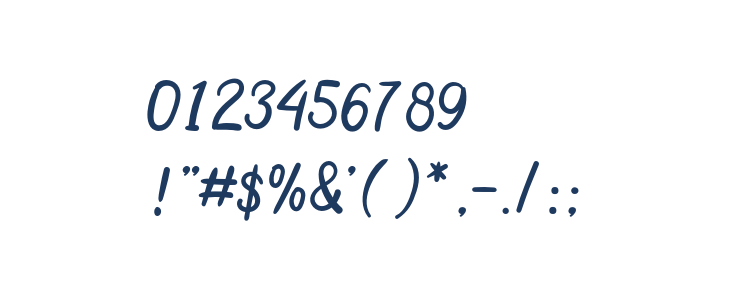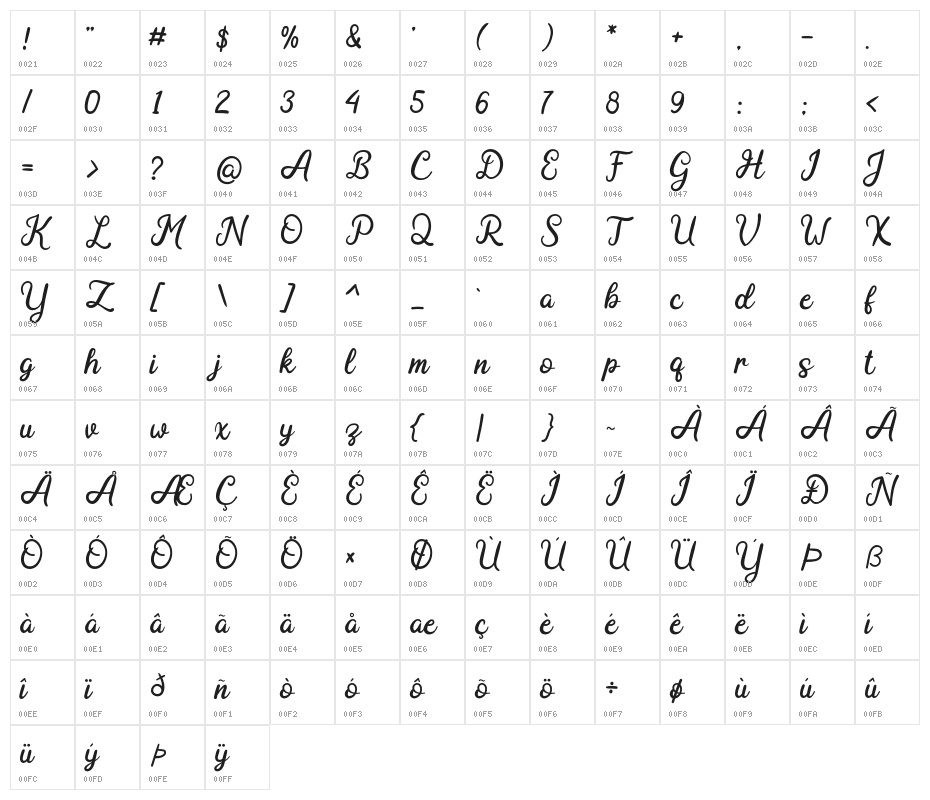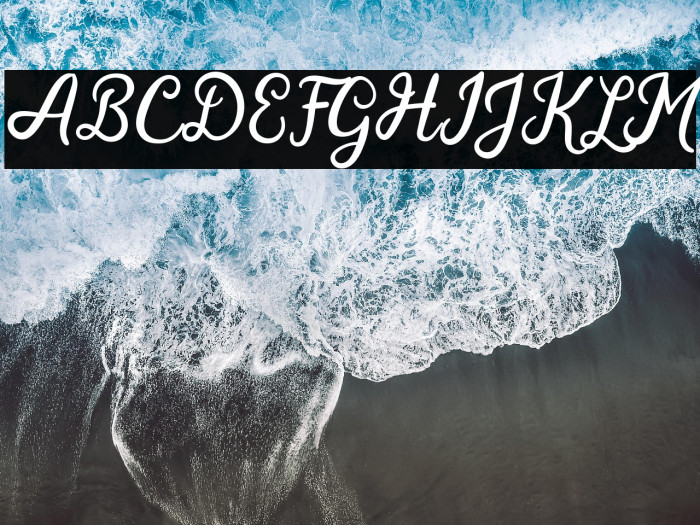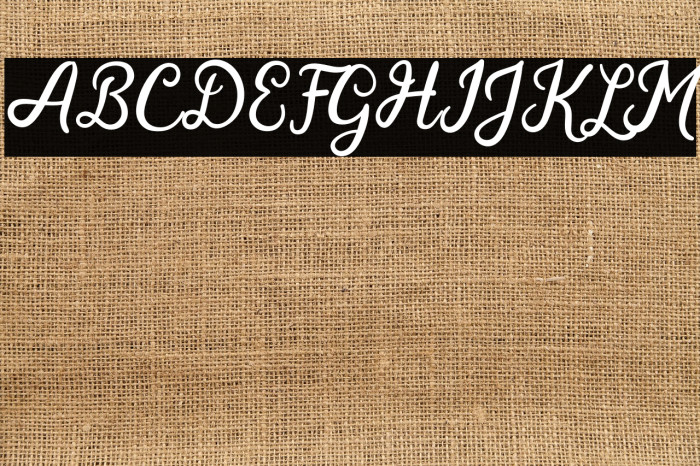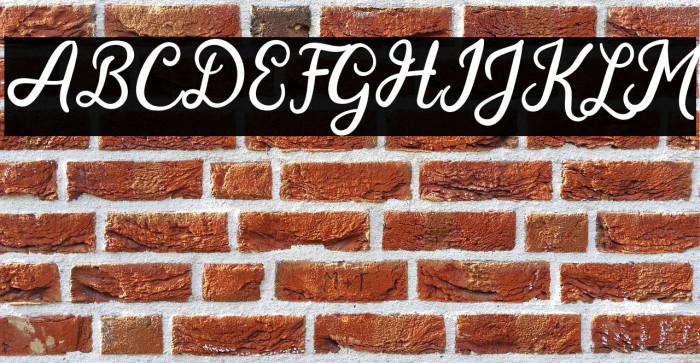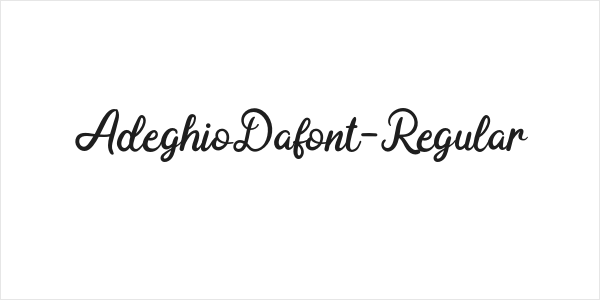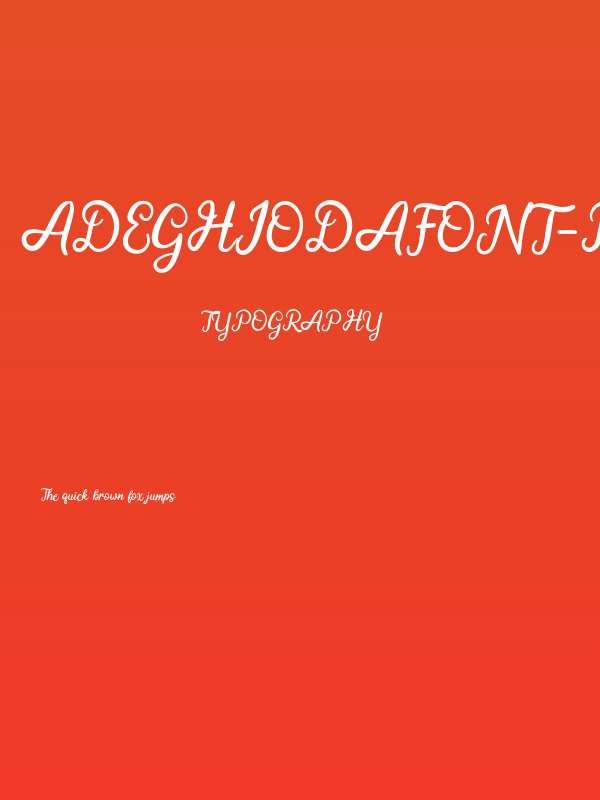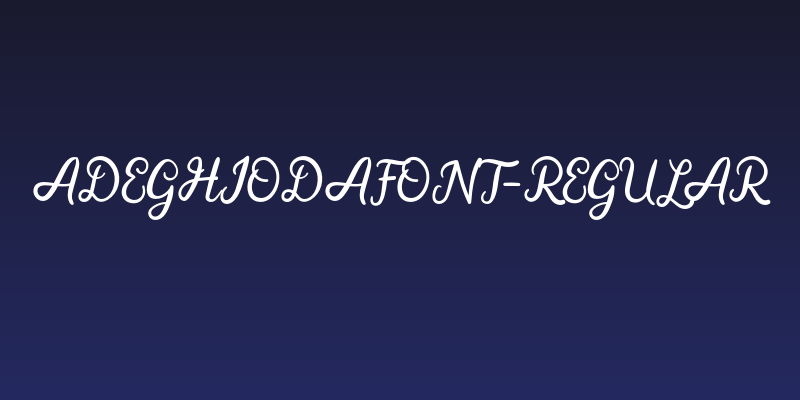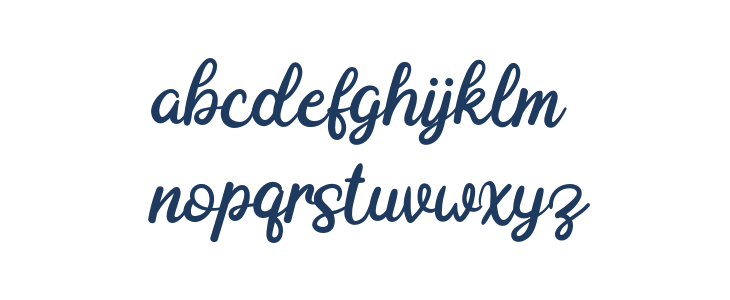
AdeghioDafont-Regular Font
AdeghioDafont-Regular Description
This font features a playful and elegant script style, characterized by its flowing, connected letters that mimic the fluidity of handwriting. The uppercase letters are slightly more formal, with graceful curves and a consistent stroke width, while the lowercase letters maintain a casual, approachable feel. The numerals are clear and legible, matching the overall aesthetic of the font. Special characters are well-integrated, ensuring versatility in various design contexts. This font's charm lies in its ability to convey both sophistication and warmth, making it suitable for a wide range of creative projects.